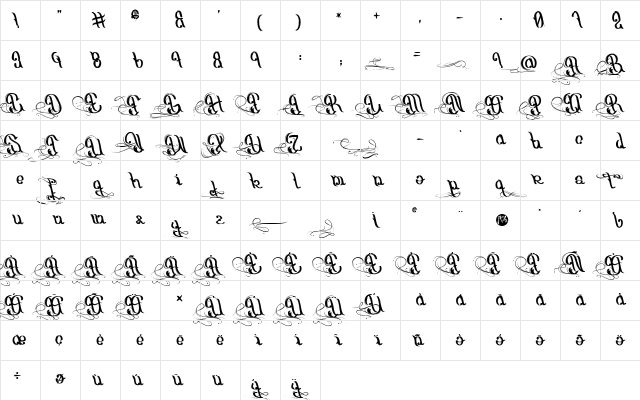
Origine du Monde Regular
Designer: Qkila
Design Context for Origine du Monde
Origine du Monde is a composed and adaptable typeface that performs quietly and consistently across a wide range of design contexts.
Pro Tip: Use Origine du Monde in both headline and body roles to test its range before committing to a single application.